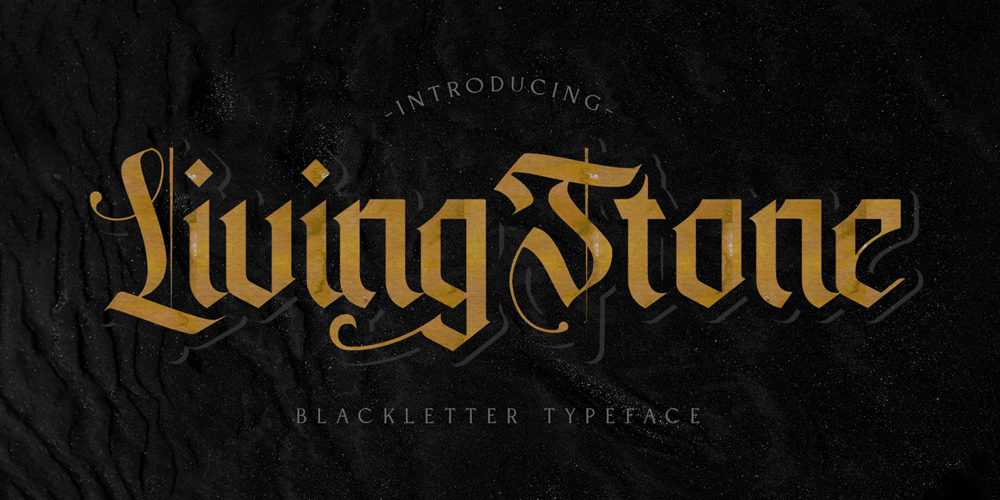
Livingstone
Livingstone font
Livingstone Font Family was designed by Virgiawan Listanto and published by Stringlabs Creative Studio. Livingstone contains 1 styles and family package options. The Livingstone is an unique blackletter decorative font. It’s suitable for use in various projects such as gothic lettering, tattoo, headlines, posters, magazines, newspapers, t-shirts, labels, and every other design which needs a striking typeface.